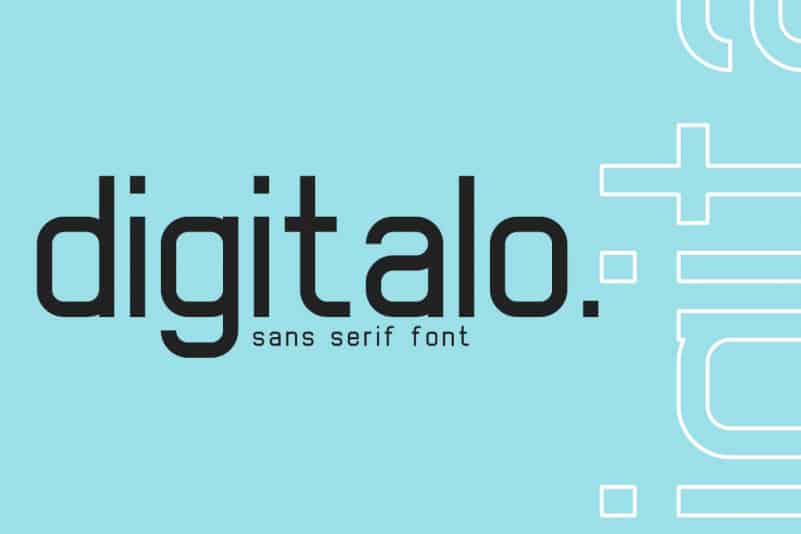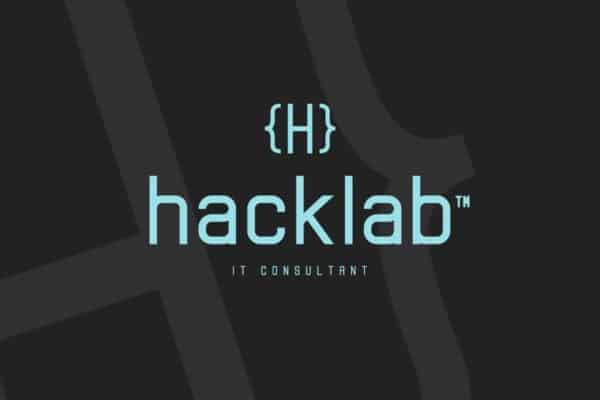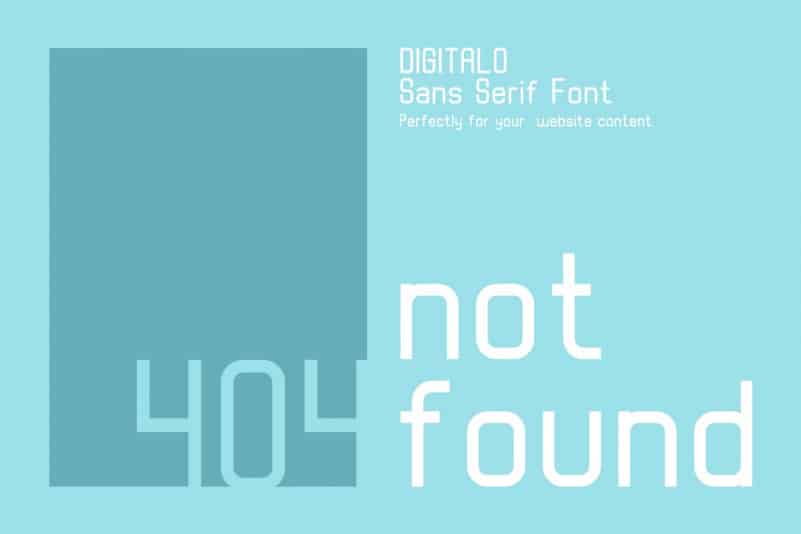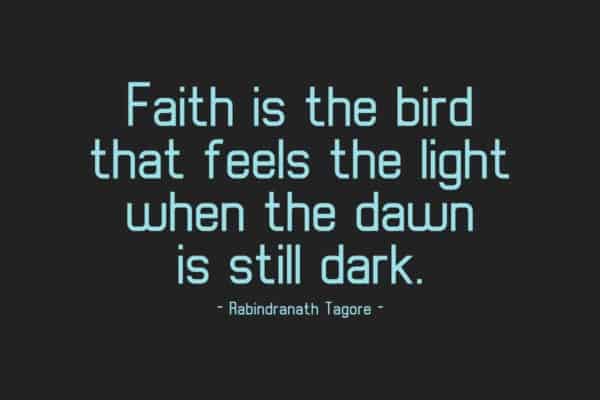
Digitalo Sans Serif Font
Digitalo Sans Serif Font with a shake effect for different heights at some angle allowing it to achieve a more recognizable character. Made from font designer named Din Studio. This typeface is a Regular and authentic Sans Serif font. It celebrates abstract shapes in all their eclectic beauty. This font will look truly outstanding in a wide range of contexts.